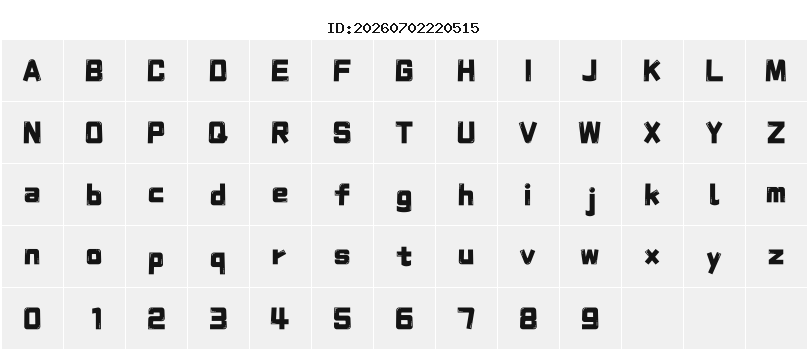
• Font Name: 168-上首雪糕体
• Full Font Name: 168-上首雪糕体
• Manufacturer: 上首造字
About 168-上首雪糕体.ttf
168-上首雪糕体.ttf is a modern, elegant sans-serif font designed for ultimate readability and visual harmony. Perfect for branding, headlines, web design, and print materials.